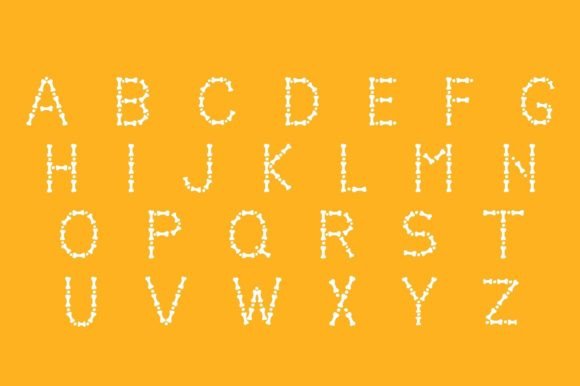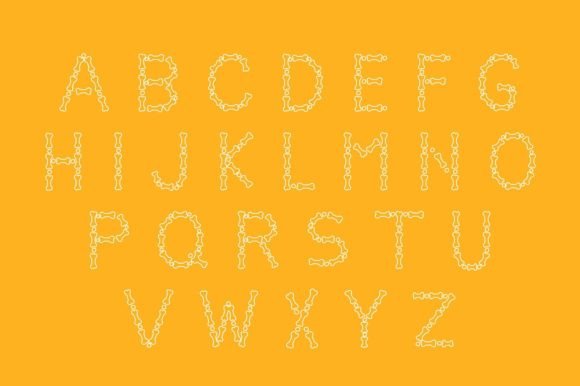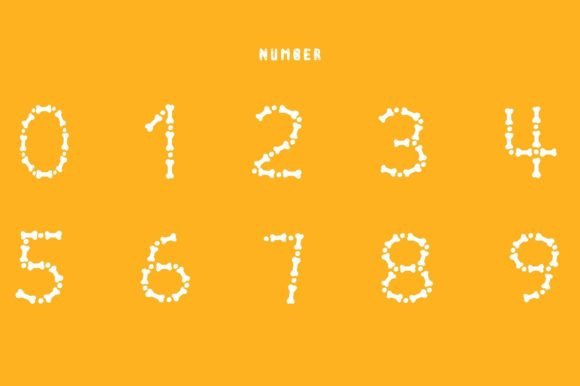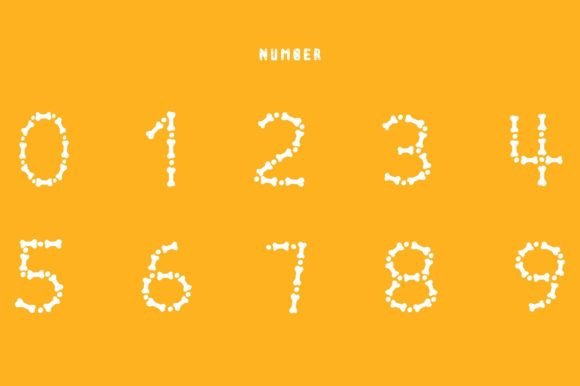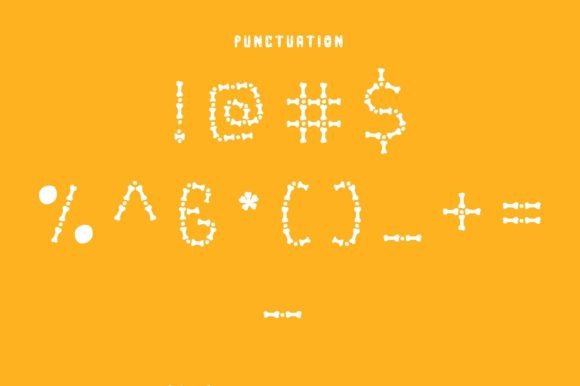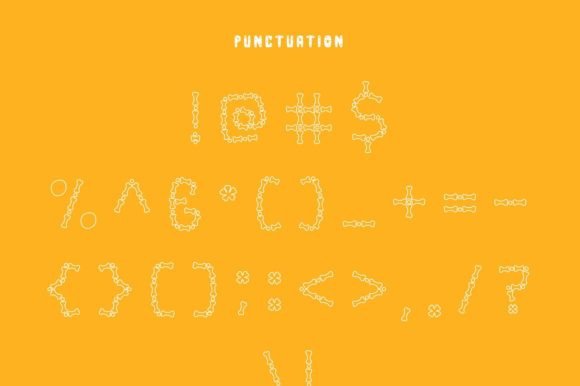
Hello Bone Font: The Ultimate Decorative Display Font for Spooky and Fun Designs
Are you looking for a font that can add a touch of playfulness and authenticity to your designs? Look no further than the Hello Bone Font! This scary and fun decorative display font is perfect for all your favorite Halloween projects, and its versatility makes it suitable for a wide range of applications beyond the spookiest of seasons.
What is Hello Bone Font?
Hello Bone Font is a unique and eye-catching decorative display font that is sure to make your designs stand out. Its playful and authentic style makes it an excellent choice for designers and crafters who want to add a touch of personality to their work. Whether you’re creating Halloween-themed projects or just want to add some flair to your designs, Hello Bone Font is the perfect choice.
Perfect for Halloween Projects
As mentioned earlier, Hello Bone Font is ideal for Halloween projects. Its spooky and fun design makes it perfect for creating:
• Halloween-themed invitations and greeting cards
• Spooky decorations and signs
• Creepy crafts and DIY projects
• Haunting blog posts and social media graphics
But Hello Bone Font is not just limited to Halloween projects. Its versatility makes it suitable for a wide range of applications, including:
Beyond Halloween: Endless Design Possibilities
Hello Bone Font can be used for:
• Blog posts and articles: Add a touch of personality to your blog posts and articles with Hello Bone Font.
• Logos and branding: Use Hello Bone Font to create unique and memorable logos and branding materials.
• Ads and marketing materials: Make your ads and marketing materials stand out with Hello Bone Font.
• Invitations and greeting cards: Use Hello Bone Font to create eye-catching invitations and greeting cards for any occasion.
• Planners and photo albums: Add a touch of personality to your planners and photo albums with Hello Bone Font.
• Decorations and crafts: Use Hello Bone Font to create spooky and fun decorations and crafts.
Why Choose Hello Bone Font?
So why choose Hello Bone Font? Here are just a few reasons:
• Playfulness and authenticity: Hello Bone Font embodies playfulness and authenticity, making it perfect for designers and crafters who want to add a touch of personality to their work.
• Versatility: Hello Bone Font can be used for a wide range of applications, from Halloween projects to blog posts and logos.
• High-quality design: Hello Bone Font is a high-quality font that is designed to make your designs stand out.
Tips for Using Hello Bone Font
Here are a few tips for using Hello Bone Font:
• Experiment with different sizes and colors: Hello Bone Font looks great in a variety of sizes and colors, so don’t be afraid to experiment and find the perfect combination for your design.
• Use it sparingly: Hello Bone Font is a bold and eye-catching font, so use it sparingly to avoid overwhelming your design.
• Pair it with other fonts: Hello Bone Font pairs well with a variety of other fonts, so try pairing it with some of your favorite fonts to create a unique and interesting design.
Hello Bone Font is a scary and fun decorative display font that is perfect for designers and crafters who want to add a touch of playfulness and authenticity to their work. Its versatility makes it suitable for a wide range of applications, from Halloween projects to blog posts and logos. With its high-quality design and ease of use, Hello Bone Font is a great addition to any designer’s toolkit. So why wait? Add Hello Bone Font to your designs today and enjoy the results!